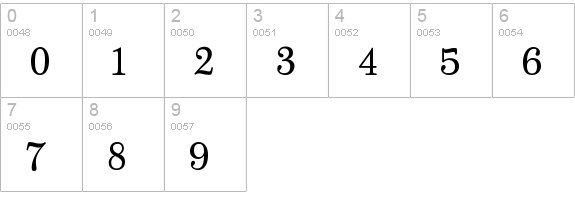
Scotch-Text Font Details
Introducing Scotch-Text, a timeless and sophisticated font that exudes elegance and refinement. With its classic serifs and clean lines, this font is perfect for adding a touch of sophistication to any project or design. Scotch-Text is not only visually stunning, but it also offers exceptional readability, making it ideal for both print and digital media. Its balanced letterforms and generous spacing ensure that every word stands out with clarity and legibility. What makes Scotch-Text even more appealing is that it is available for free download at FontsMarket.com. Yes, you read that right - this incredible font can be yours at no cost, allowing you to elevate your design work without breaking the bank. Whether you're creating a striking logo, designing a captivating website, or crafting eye-catching marketing materials, Scotch-Text has got you covered. Its versatility knows no bounds, seamlessly adapting to various design styles and genres. With Scotch-Text, you can effortlessly communicate a sense of sophistication, professionalism, and attention to detail. Its timeless aesthetic is perfect for conveying a sense of tradition and reliability, making it an excellent choice for branding and corporate projects. So why wait? Experience the undeniable beauty and versatility of Scotch-Text today by downloading it for free at FontsMarket.com. Unleash your creativity and take your designs to new heights with this remarkable font.